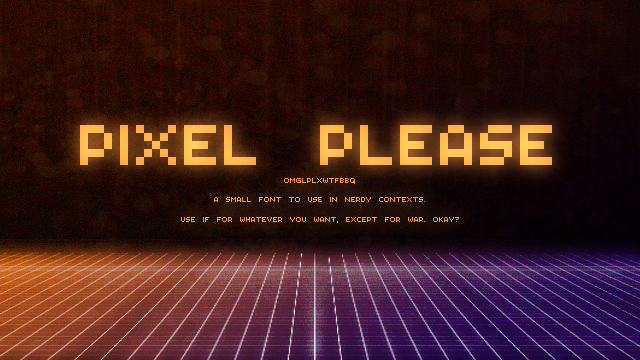
Font name: | PXLPLZ |
Author: | Anton Bohlin |
Note by Anton Bohlin | |
A small font to use in nerdy contexts. Use if for whatever you want, except for war. For optimal resolution - use 8pt size |